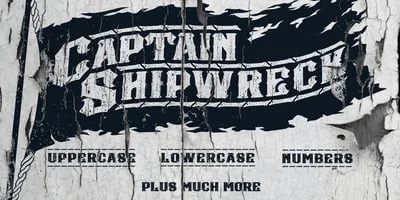
Captain Shipwreck Font
Captain Shipwreck Font is ideal for pirate-themed designs, nautical restaurant branding, adventure movie titles, maritime museum graphics, treasure hunt party invitations, seafaring tattoo designs, rum distillery labels, coastal bar signage, sailing club materials, and any swashbuckling project that captures the rugged romance of life on the high seas.
What makes Captain Shipwreck Font exciting is its authentic weathered appearance that tells tales of countless storms weathered and treasures discovered on the unforgiving ocean. This typeface embodies the spirit of maritime adventure with distressed letterforms that appear carved by salty winds and bleached by tropical sun. The font's weathered character makes it perfect for brands and projects that want to communicate adventure, rebellion, and the untamed freedom of the seafaring life.
The Captain Shipwreck Font family includes multiple textural variations and decorative elements, featuring regular, bold, and heavily distressed versions along with nautical symbols, anchor motifs, and rope-inspired ornaments. This comprehensive collection allows designers to create authentic maritime typography that maintains the font's signature weathered character while providing flexibility for various oceanic design applications and pirate-themed storytelling needs.
When exploring authentic maritime typography, Captain Shipwreck Font offers designers an exceptional opportunity to work with a typeface that genuinely captures the spirit of seafaring adventure and pirate lore. This font demonstrates meticulous attention to detail in recreating the natural weathering patterns and battle scars that develop on ship signage after years of exposure to salt spray and ocean storms.
Professional designers value Captain Shipwreck Font for its ability to instantly transport audiences to the golden age of piracy and maritime exploration. The font's rugged character makes it particularly effective for entertainment venues, themed restaurants, and adventure brands seeking to establish an atmosphere of excitement and nautical authenticity that resonates with audiences craving adventure.
The timeless appeal of Captain Shipwreck Font lies in its perfect representation of maritime romance and seafaring adventure that continues to captivate imaginations across generations. This typeface serves as a powerful connection to our nautical heritage, making it invaluable for projects seeking to evoke the excitement and danger of life on the ocean waves.
For creative professionals passionate about maritime themes and adventure storytelling, Captain Shipwreck Font represents the ultimate typography solution that brings authentic seafaring character to any project, ensuring every application reflects the wild freedom and weathered beauty of the pirate's life.